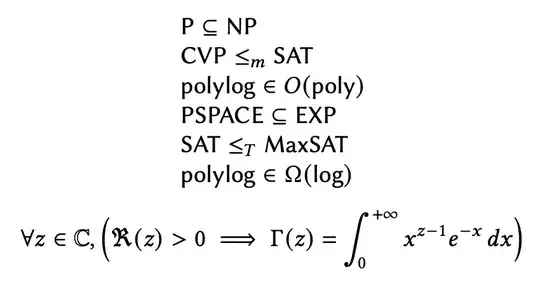
I'm currrently using the complexity package, where I have defined a lot of new commands for complexity classes, and I'm writing my document using the libertine font. I want to use the regular math font for everything except for the commands rendered by the complexity package... That is, I want the commands defined by the complexity package to use the math font libertinust1math while the rest of the math should be rendered in the usual math font.
I imagine there must be a simple command to change the font of specific commands, but I don't know that it is.
Are you using LuaLaTeX? You could probably use \fontspec and \newfontfamily. – Ingmar Jun 05 '22 at 11:44
Mixing Latin Modern Math with Libertine? Oh, no! – egreg Jun 05 '22 at 12:38
• For the rest sentence, I don't think there's one. You might have to resort to learning TeX programming and copy paste the appropriate lines from the font file, depends on the cases (for XeLaTeX/LuaLaTeX it's a bit easier with fontspec – user202729 Jun 05 '22 at 12:49
@egreg What would be the right math font for Libertine? I've seen libertinust1math but it is rather ugly, so I tried newtxmath instead, which is the combination the ACM proceedings use, I believe. Is there a better combination you suggest? – Noel Arteche Jun 05 '22 at 15:33
The following does what was requested in the question (tested with pdflatex). I leave it up to the author to choose matching fonts.
The acmart class uses Linux Libertine fonts for text and does
\RequirePackage[libertine]{newtxmath}
If you do the same (with \usepackage, of course), you'll get what you want and avoid mixing visually incompatible fonts.
Using the code provided by frougon
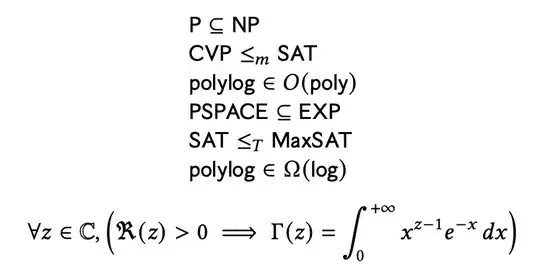
This will use Linux Biolinum for the sans serif. If you want the sans serif used by libertinust1math, then you can do